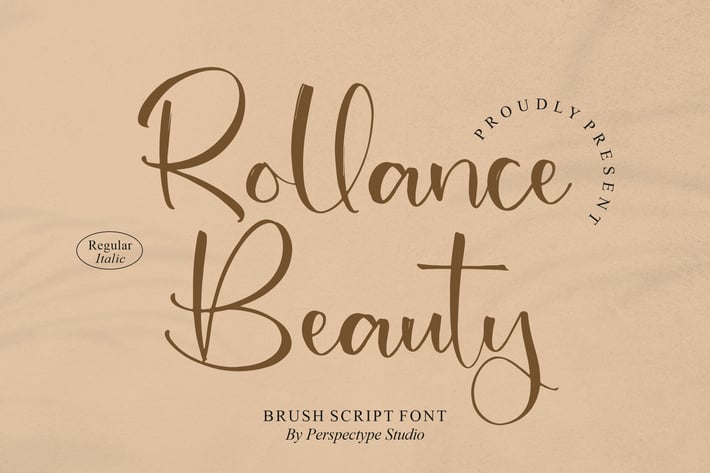
Rollance Beauty Brush Script Font
Rollance Beauty is a soft and elegant brush script font designed to express warmth, femininity, and natural charm. With its smooth hand-brushed strokes and graceful flow, this font brings a romantic yet modern feel—perfect for designs that aim to look beautiful, calm, and effortlessly stylish.
Smooth brush script with natural handwritten texture
Elegant curves with a soft, feminine personality
Balanced strokes for clear readability
Includes regular & italic styles
Beauty & skincare branding
Wedding invitations & stationery
Lifestyle & fashion designs
Social media posts & quotes
Logo marks and packaging
Soft strokes, gentle beauty — a brush script that feels warm, graceful, and timeless.*